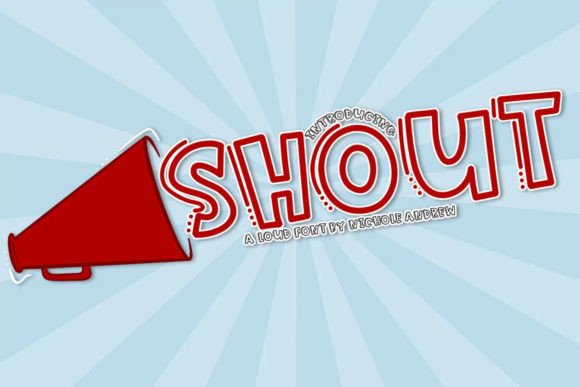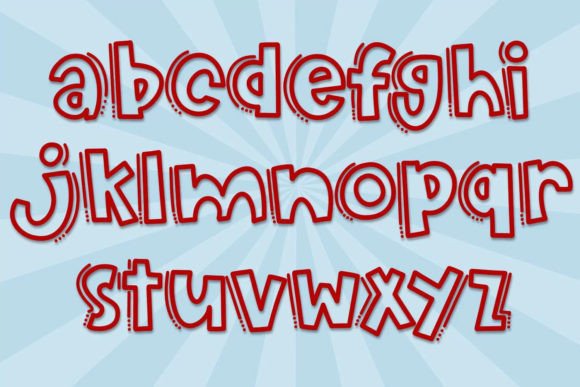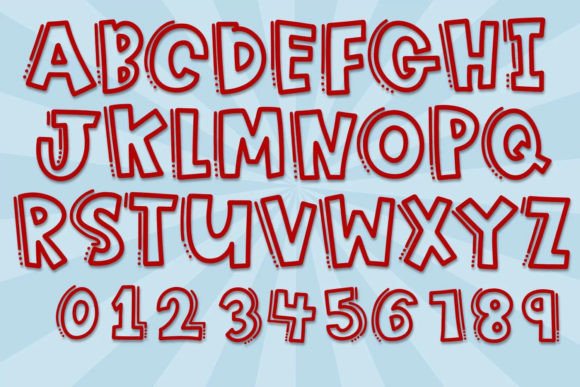
Introducing Shout, a loud font. Shout is a handwritten display font, with shadowing lines to really make a loud appearance! Use Shout to emphasize a project or as a statement by itself! Shout can be used with cut machines, with cleaned nodes for cutting!